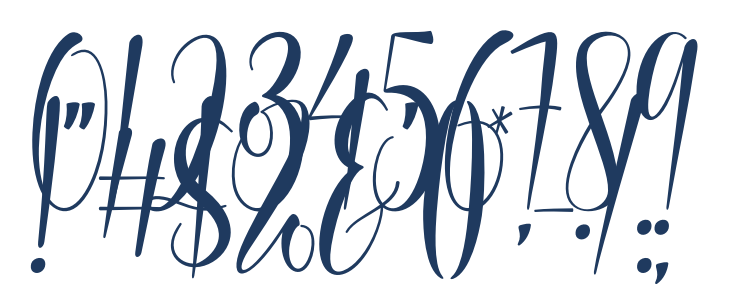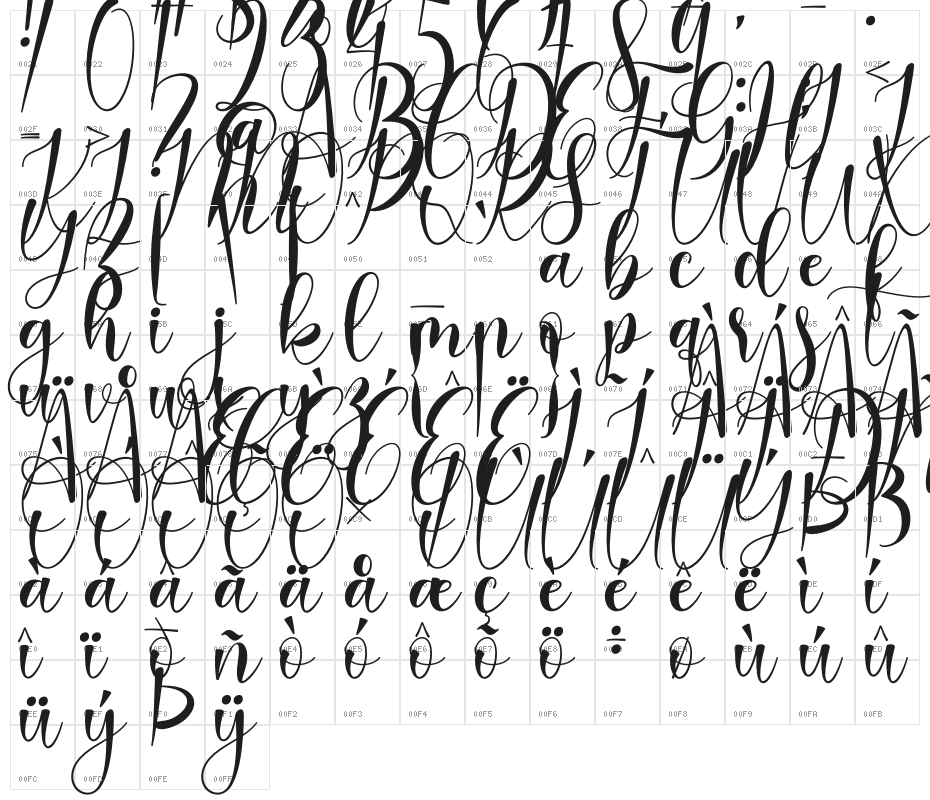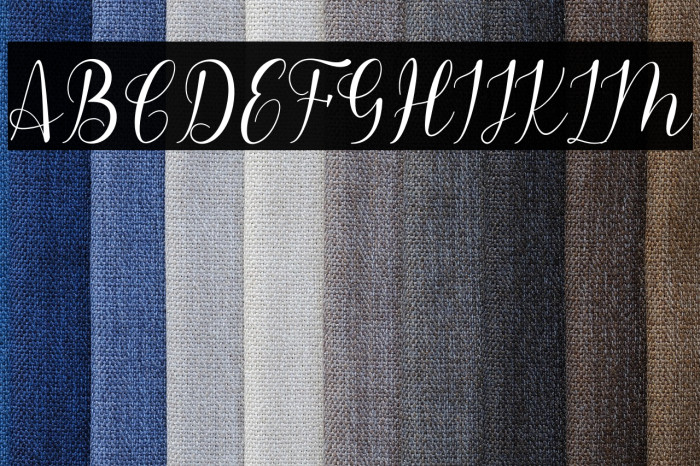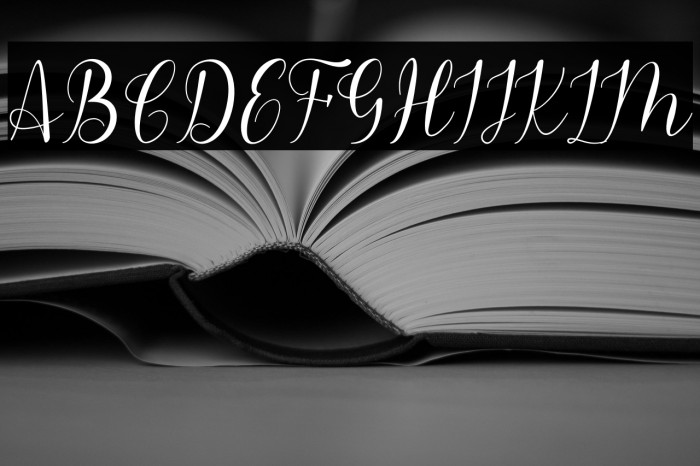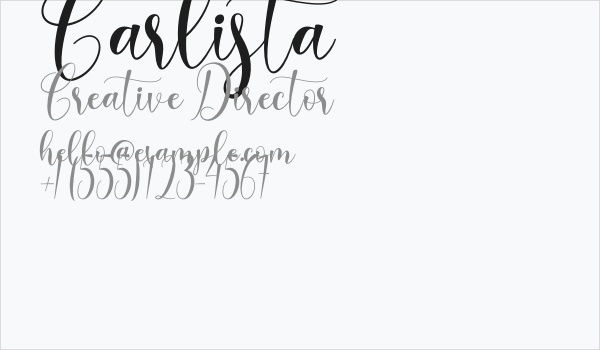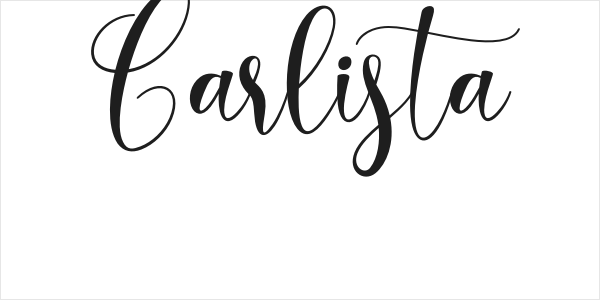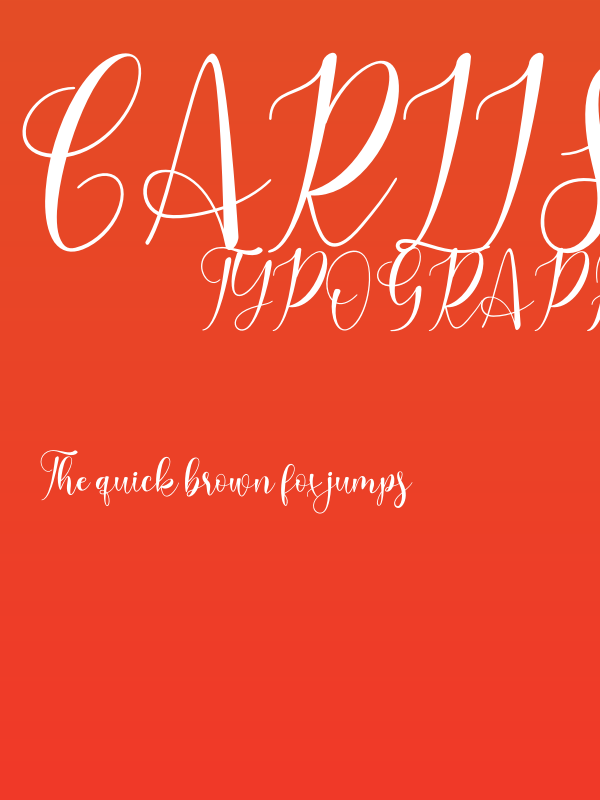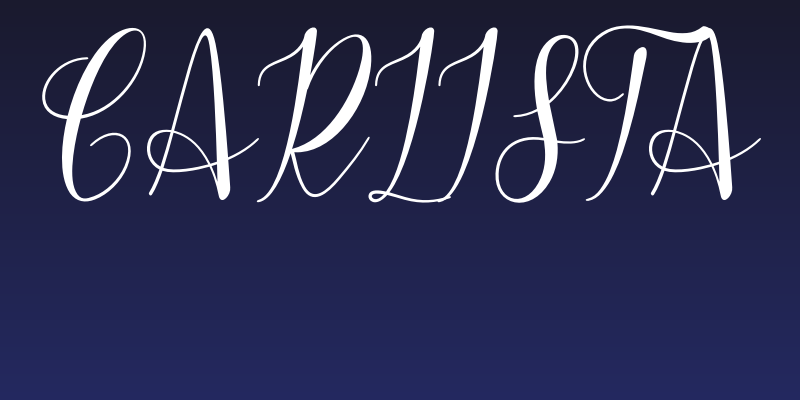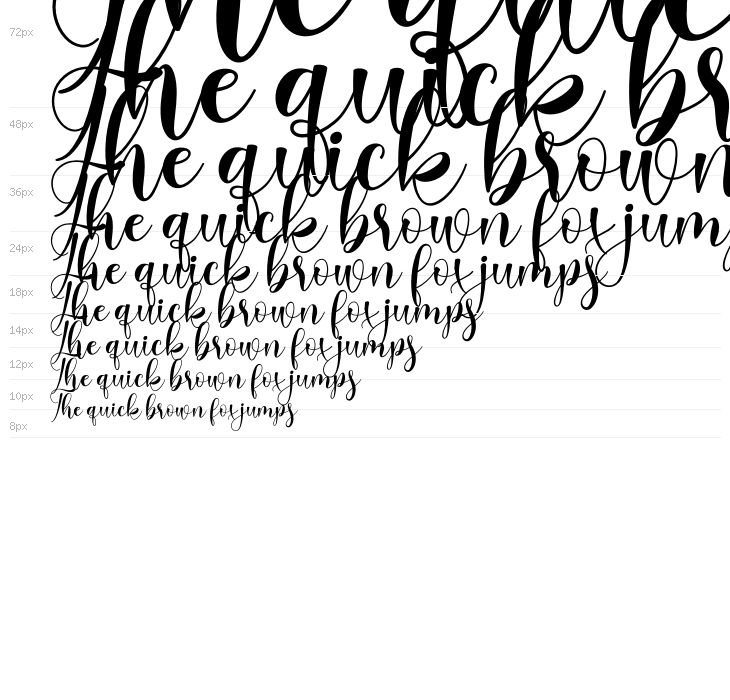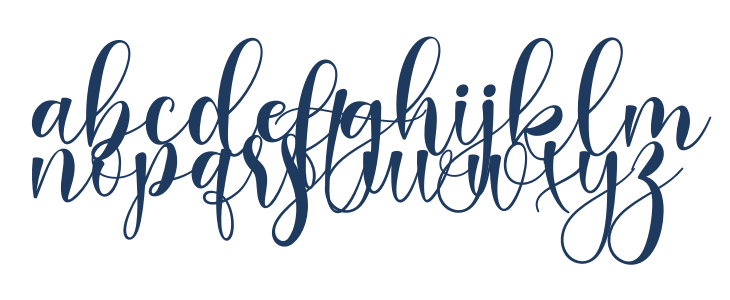
Carlista Font
Carlista Description
This font features an elegant and flowing script style, characterized by its smooth, cursive letterforms that exude a sense of sophistication and grace. The uppercase letters are tall and slender, with sweeping curves and loops that give them a dynamic and lively appearance. The lowercase letters maintain a consistent flow, with some characters featuring distinctive flourishes that add to the overall decorative quality. The numerals are styled to match the script's elegance, with a slight slant and graceful curves. Special characters are integrated seamlessly, maintaining the font's cohesive aesthetic. This font is perfect for projects that require a touch of elegance and formality, such as wedding invitations, branding, and high-end product packaging.
| Overall Style | Elegant, Decorative |
| Use Case | Headlines, Invitations, Branding |
| Proposed Projects | Ideal for wedding invitations, luxury branding, and elegant product packaging. |